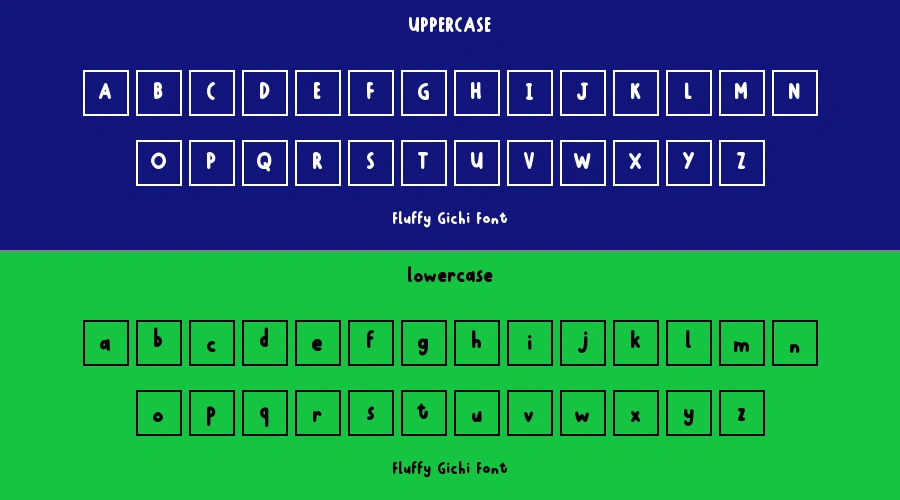
About Fluffy Gichi Font
Fluffy Gichi Font embodies typographic excellence through its masterful combination of angled joins and refinement. Created for merchandise graphics, this typeface delivers exceptional distinctiveness and technical mastery across all applications. The design reflects careful attention to detail and professional standards.
Advanced capabilities include distinctive swash extensions and versatile stylistic sets, giving designers creative control. When used in section headers, Fluffy Gichi Font exhibits remarkable small text rendering. The harmonious balance between ascender height and regulatory compliance sets this typeface apart.